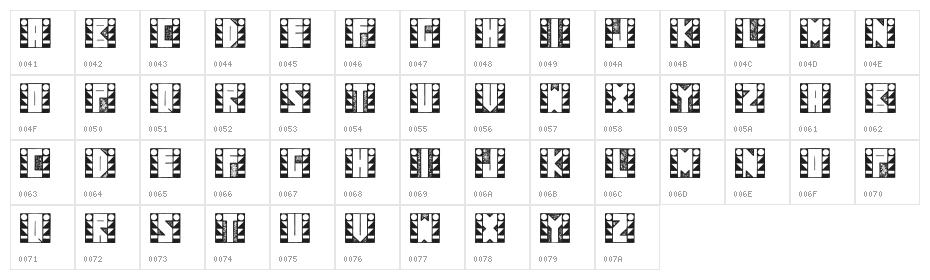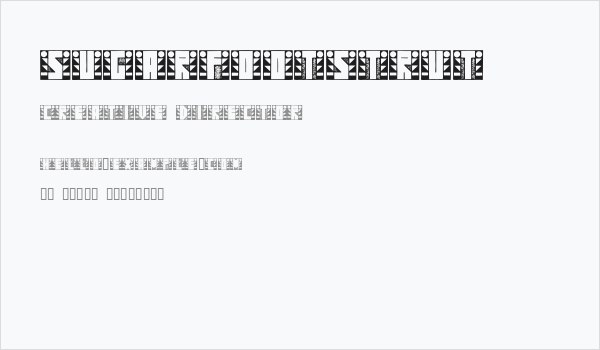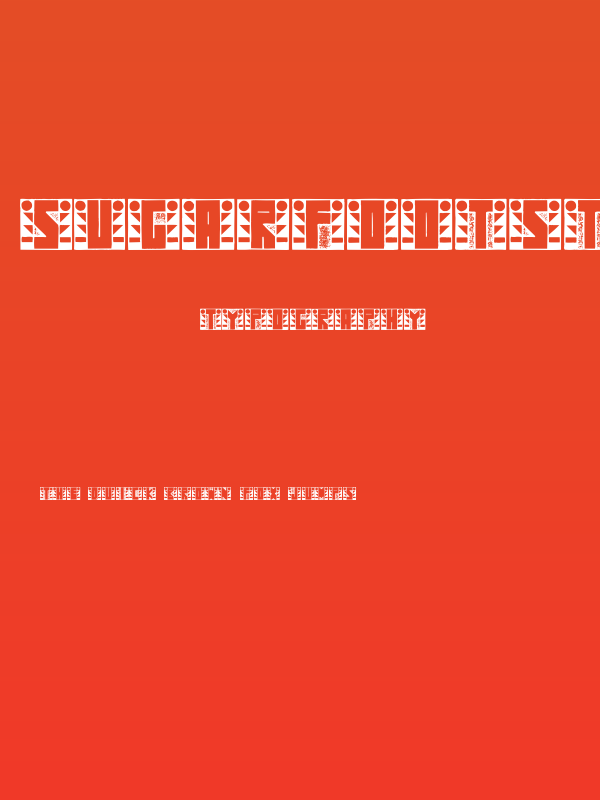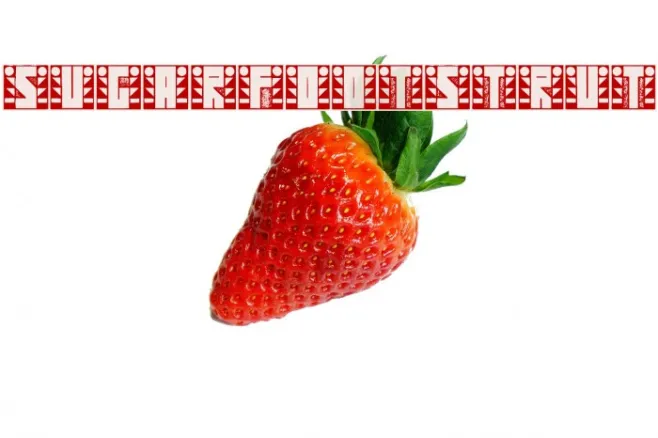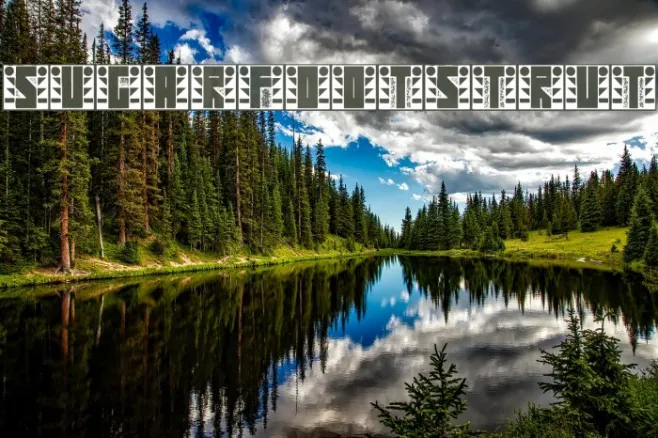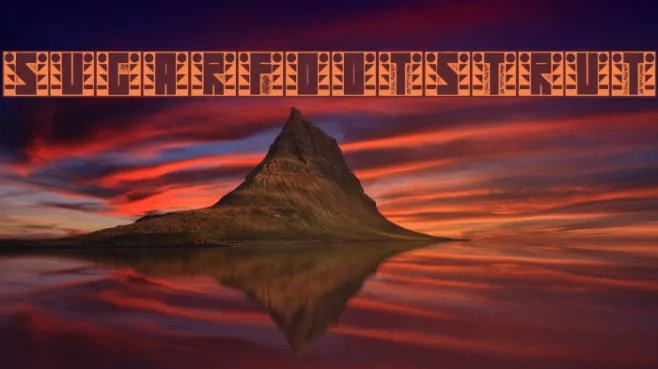
SugarFootStrut Font
SugarFootStrut Description
This font features a bold and decorative style with intricate patterns filling each character. The letters are enclosed in rectangular frames, giving them a structured appearance. The design incorporates geometric shapes and textures, creating a visually striking effect. Each character is uniquely detailed, making it ideal for eye-catching designs. The font's playful and artistic nature makes it suitable for creative projects that require a strong visual impact.
| Proposed Projects | Ideal for posters, album covers, event invitations, and artistic branding projects. |